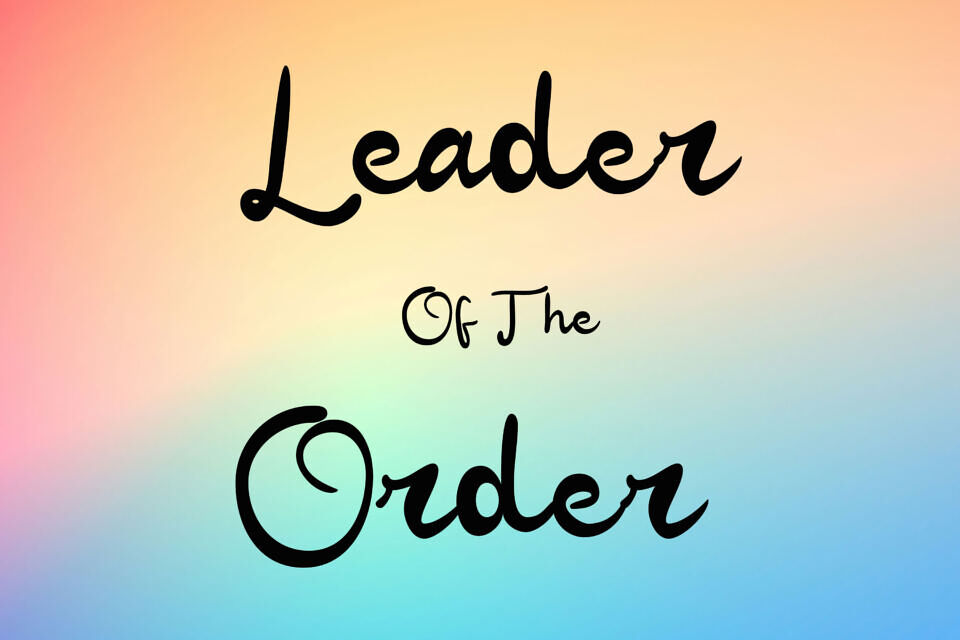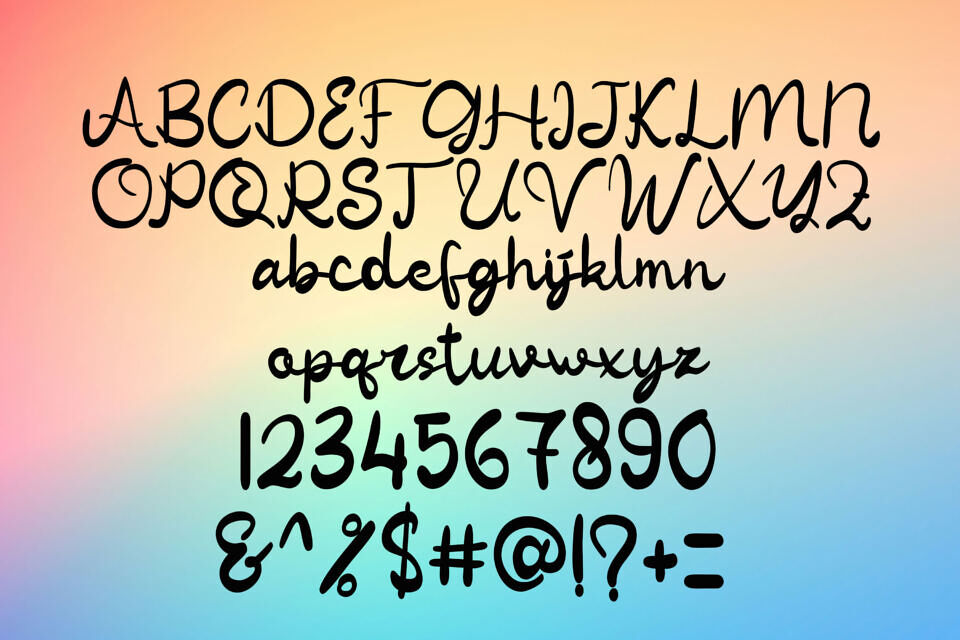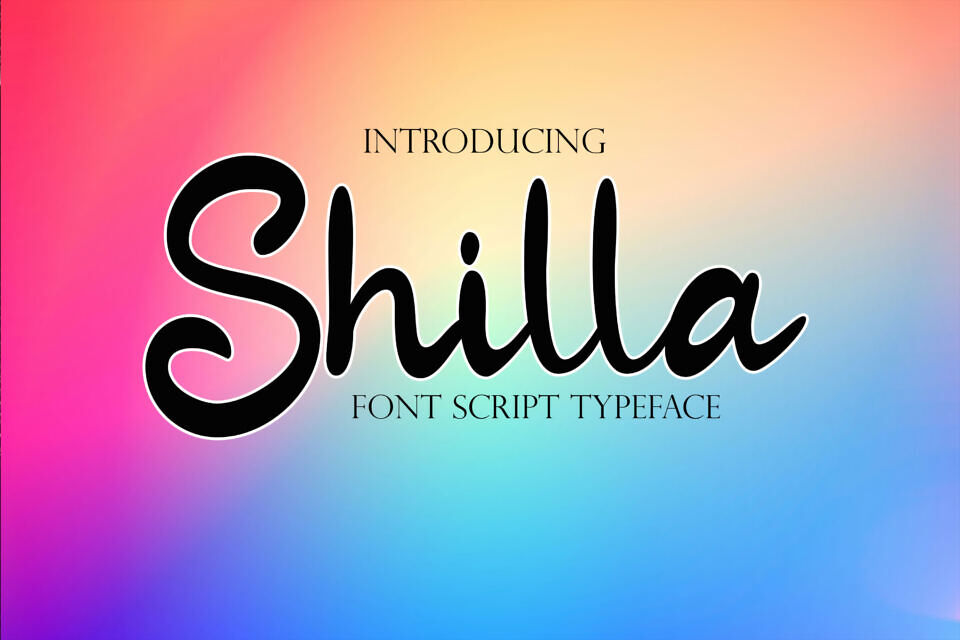
Shilla Font
Shilla is a flowing handwritten font, described by an elegant touch, perfect for your favorite projects. Fall in love with its incredibly distinct and timeless style and use it to create spectacular designs!